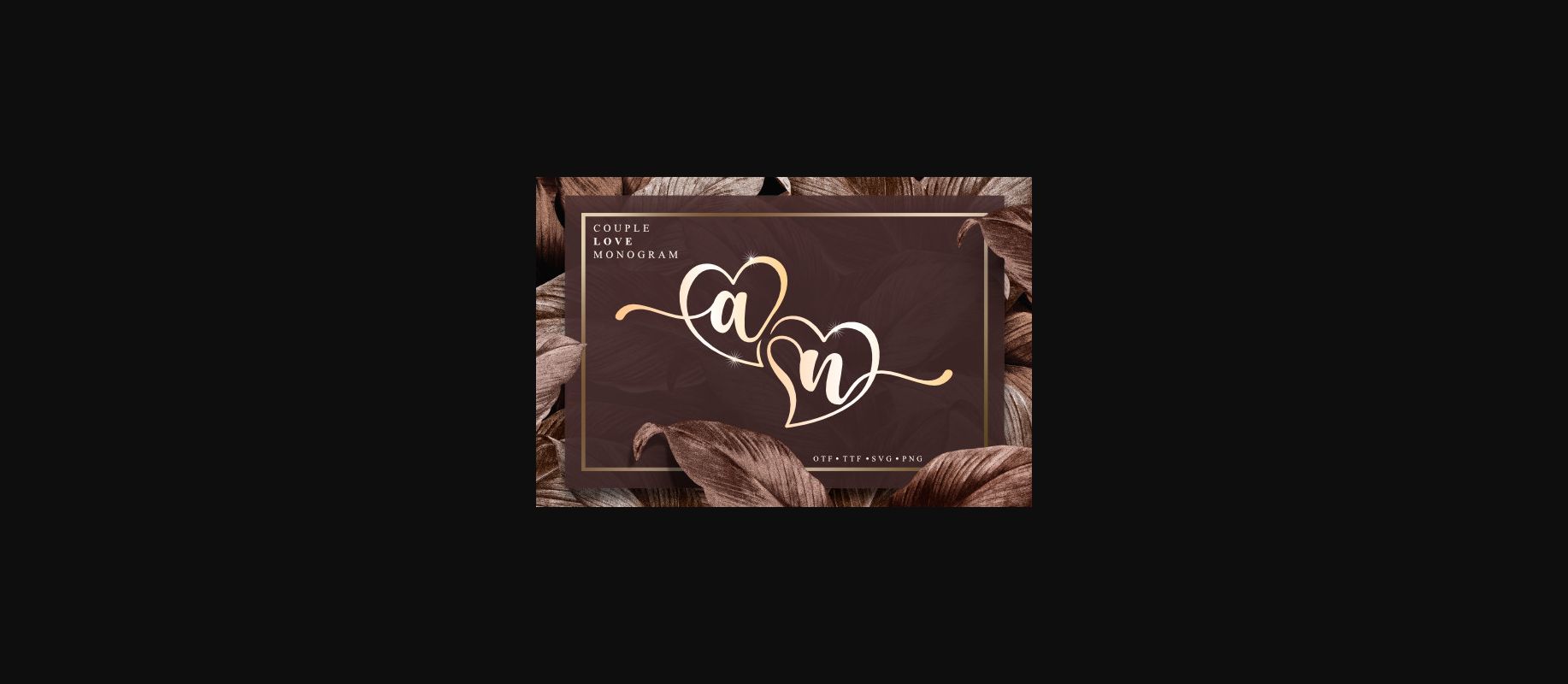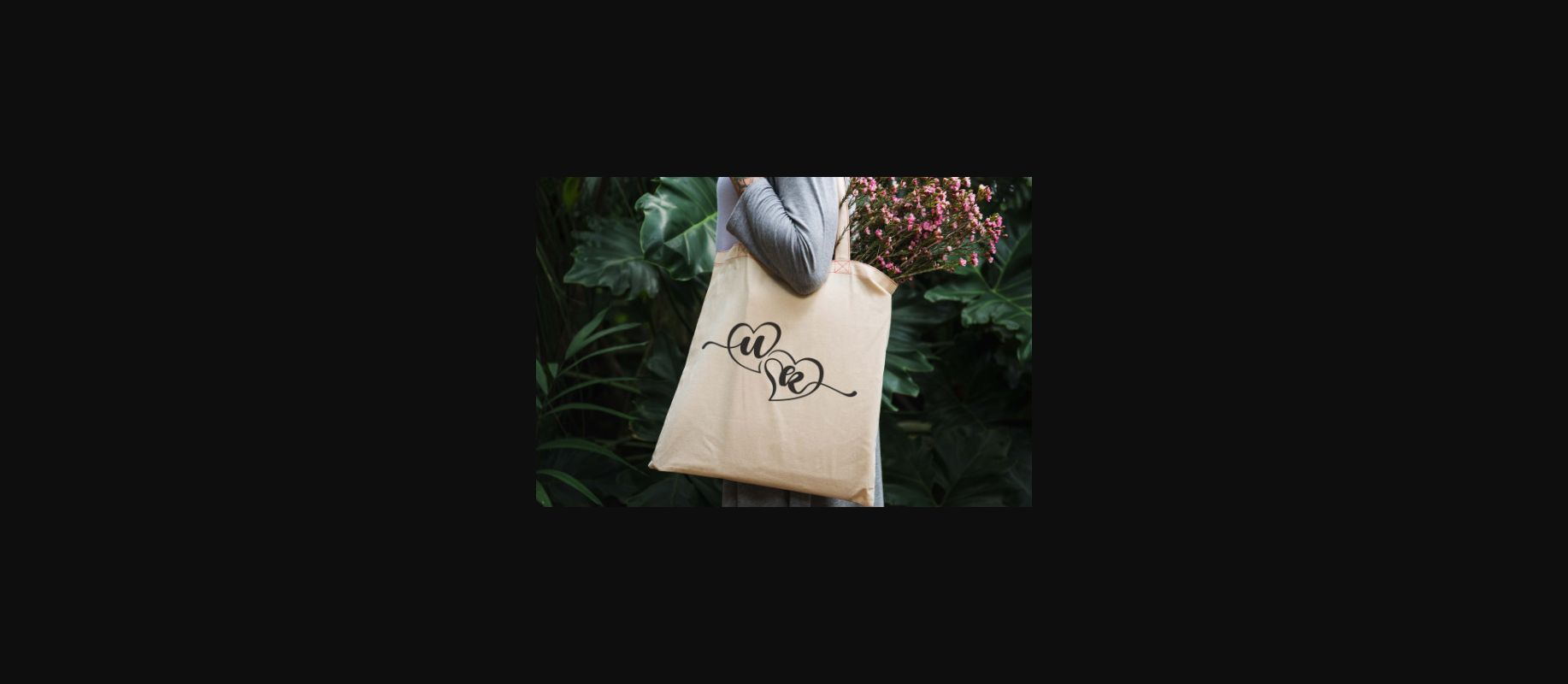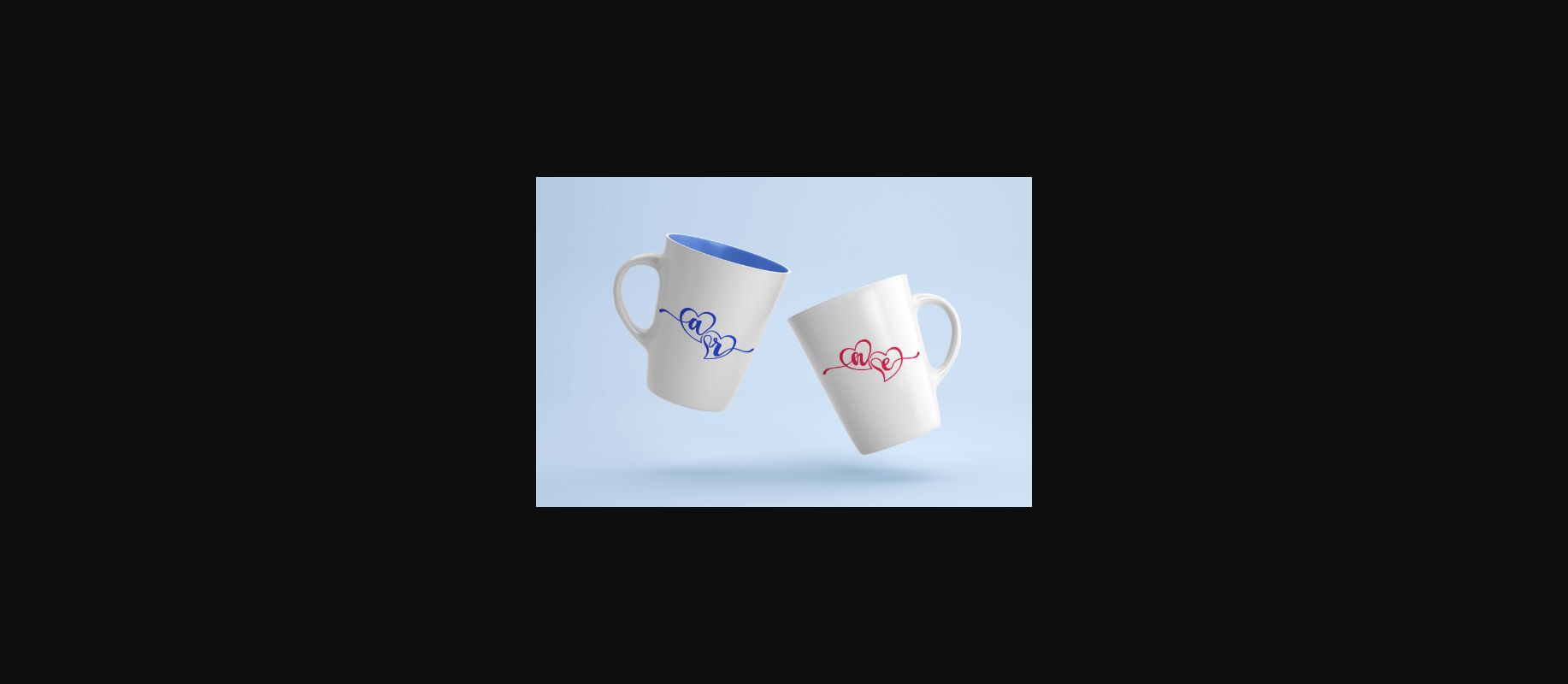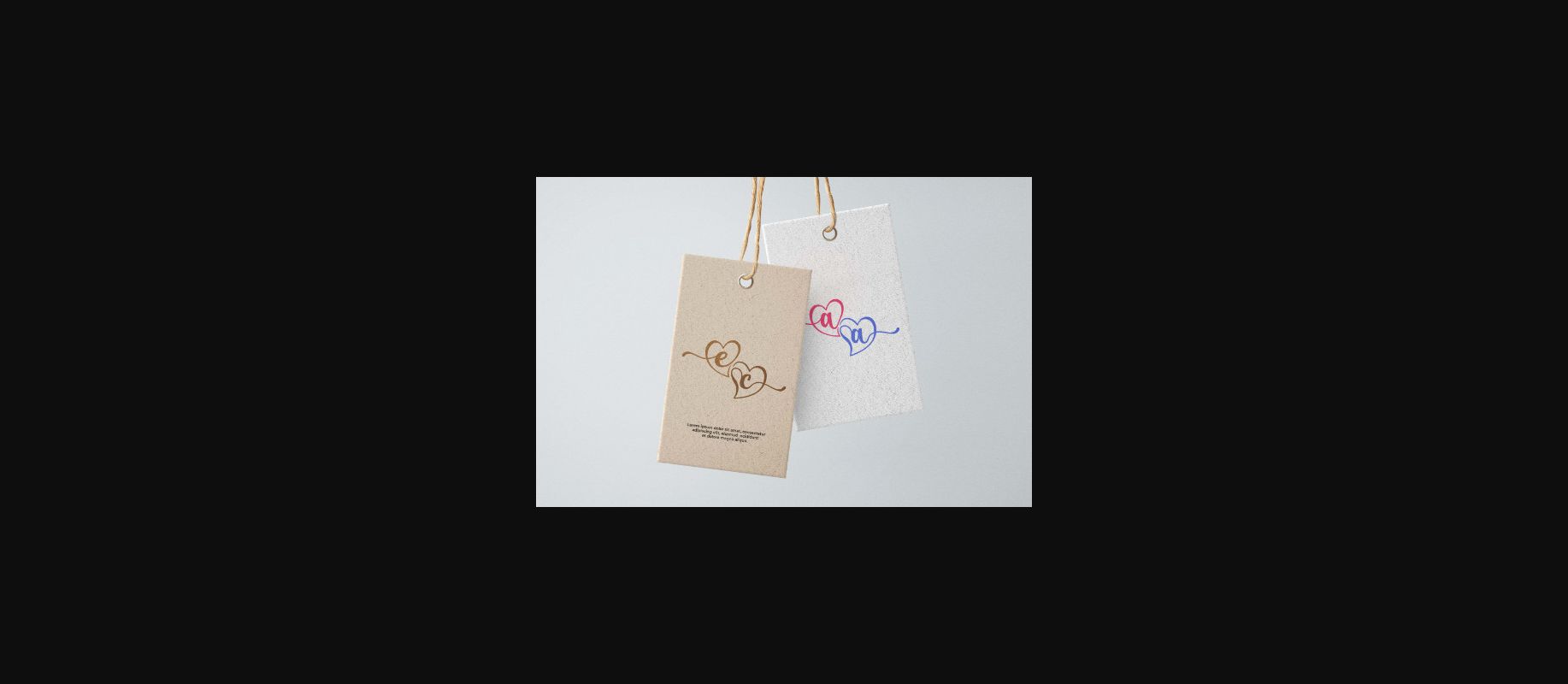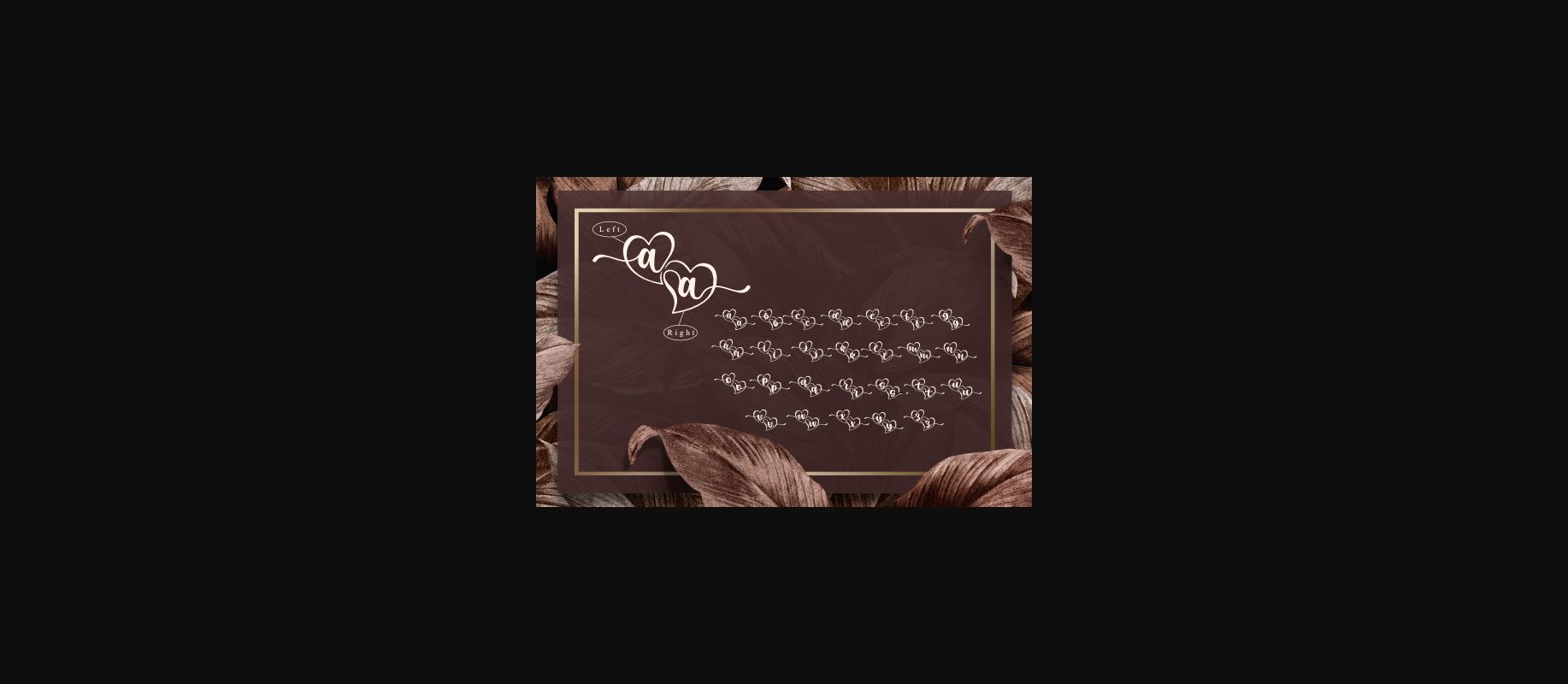
About Couple Love Monogram Font
Couple Love Monogram is a romantic and unique decorative font, perfect for so many crafty ideas! Use it for logos, branding, invitations, stationery, wedding designs, social media posts, advertisements, product packaging, labels, watermarks, Valentine’s Day, or anything else.